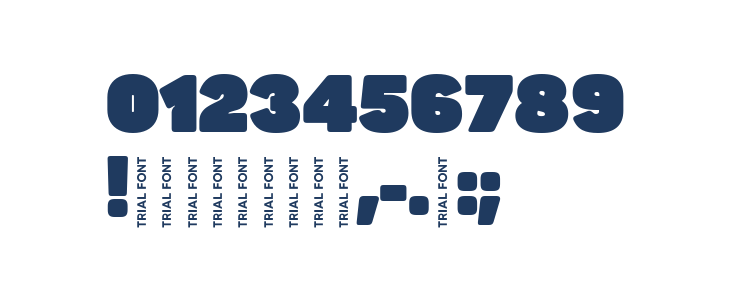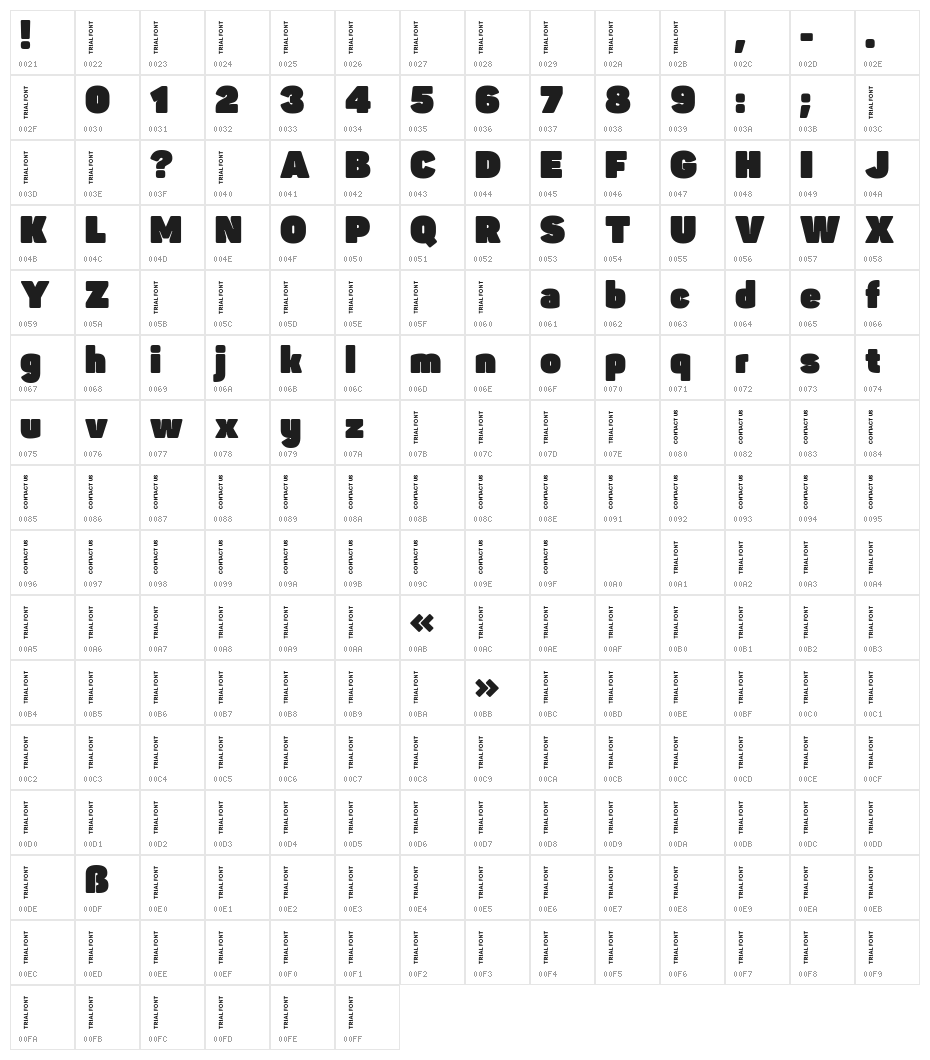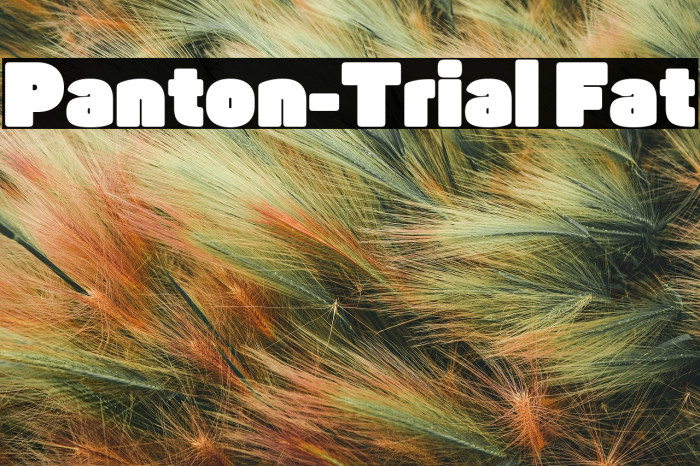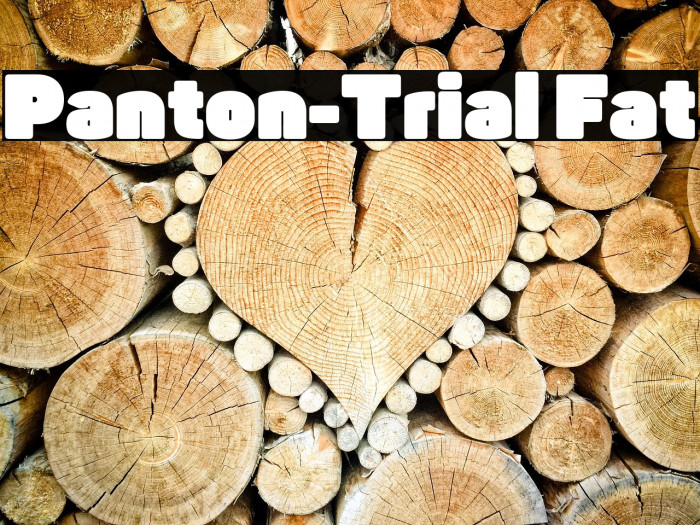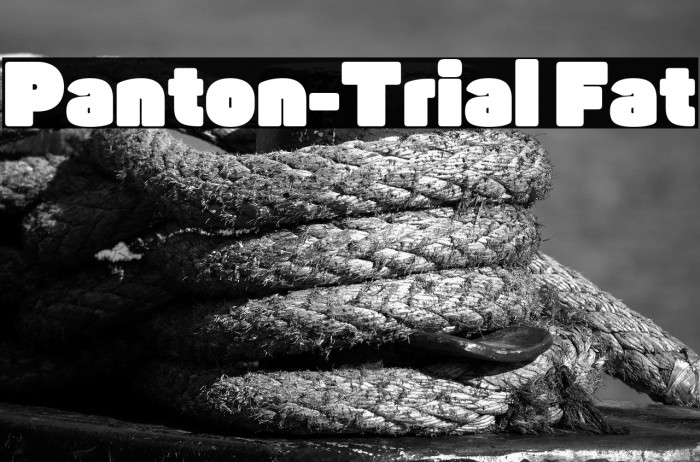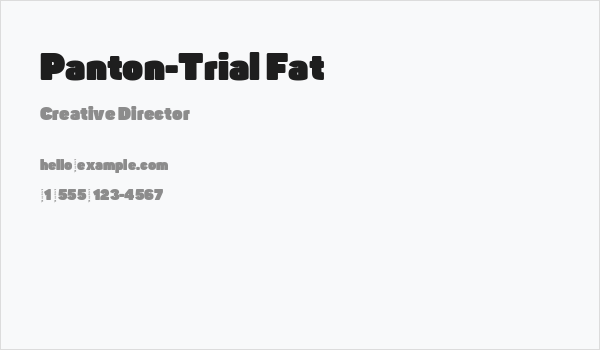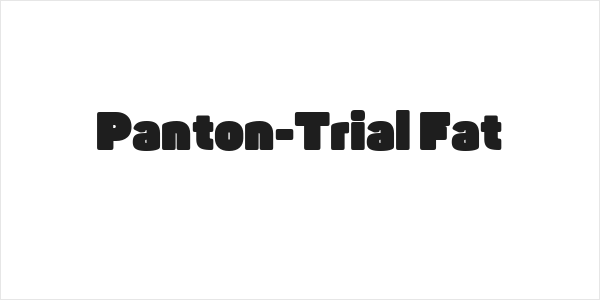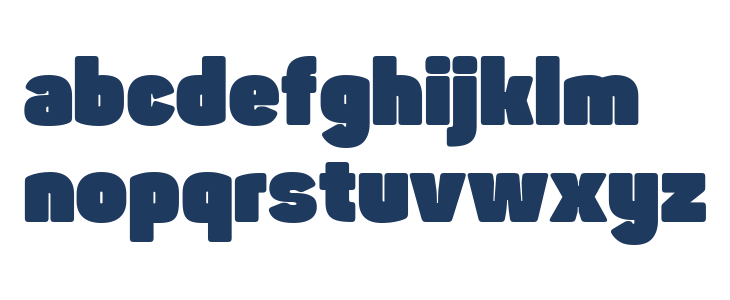
Panton-Trial Fat Font
Panton-Trial Fat Description
This font features a bold and impactful design with thick, uniform strokes that create a strong visual presence. The characters are rounded and smooth, giving a friendly and approachable feel. The uppercase and lowercase letters maintain a consistent weight, enhancing readability and making it suitable for various design applications. The numerals and special characters are equally bold, ensuring they stand out in any context. Overall, this font is ideal for making a statement and drawing attention.
| Proposed Projects | Ideal for branding, headlines, posters, and advertising where a strong and friendly impact is desired. |